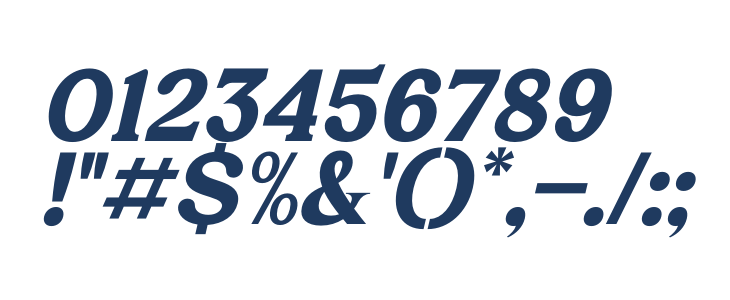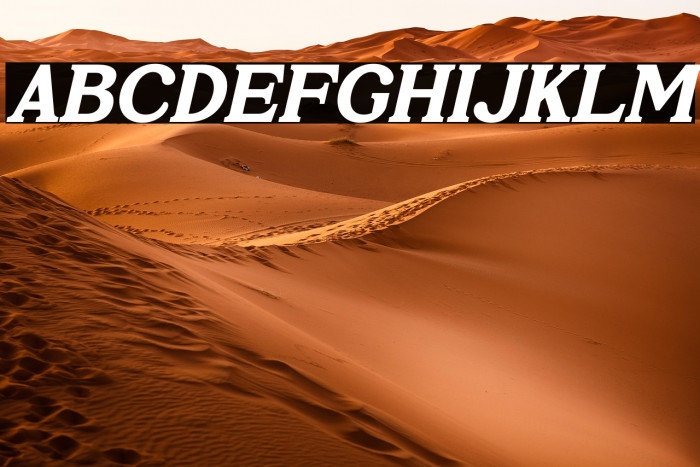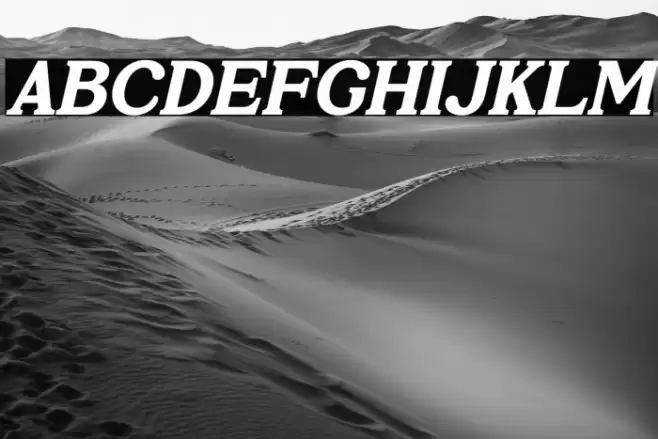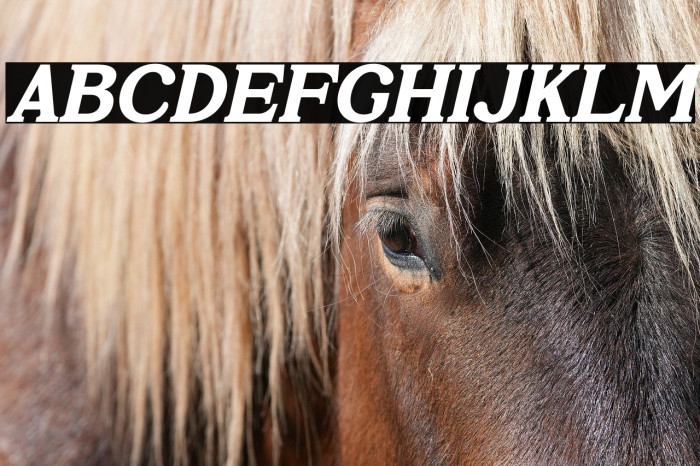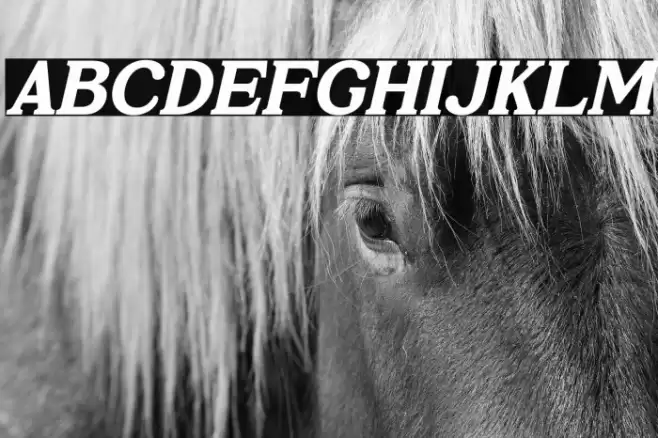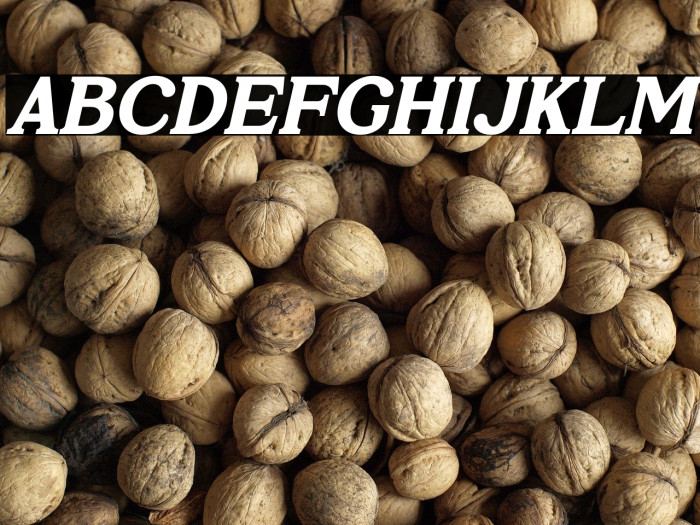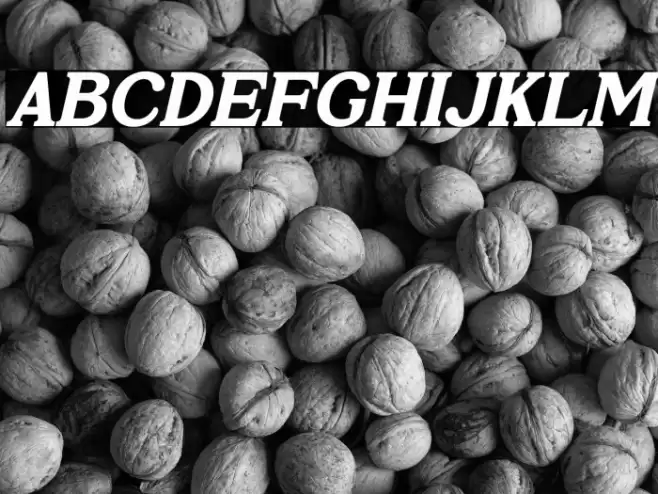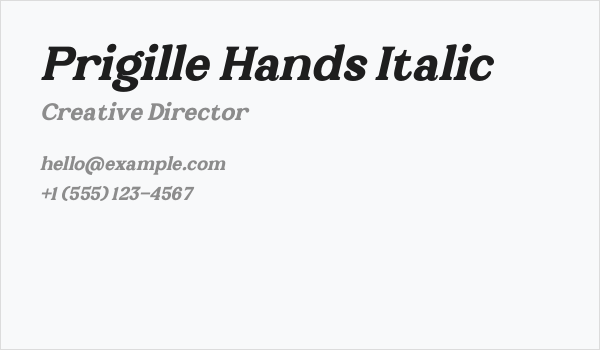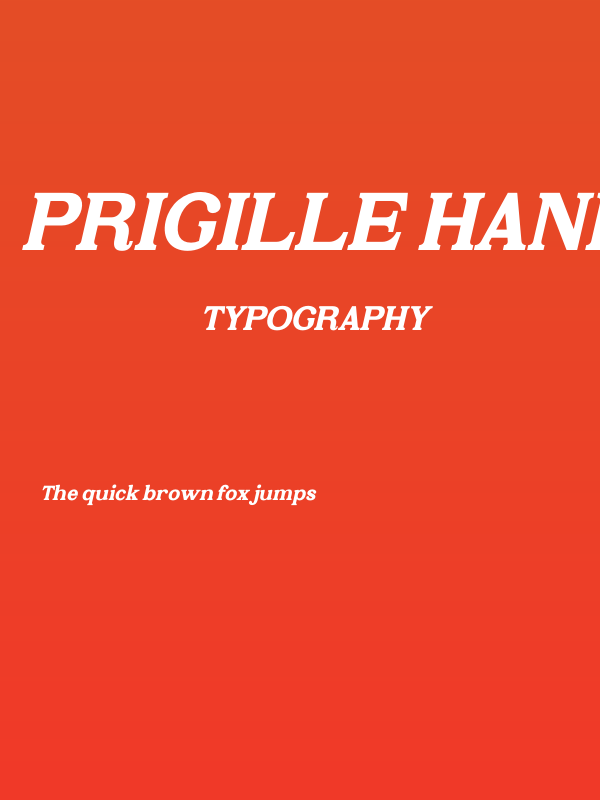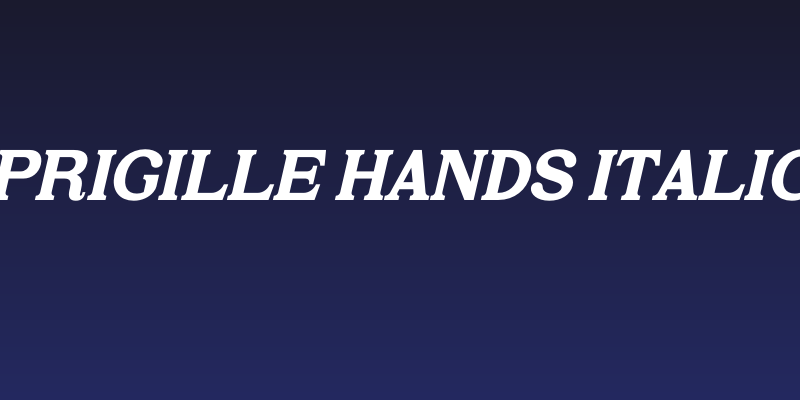
Prigille Hands Italic Font
Prigille Hands Italic Description
This font presents a dynamic and elegant italic style, characterized by its smooth curves and moderate slant. The uppercase letters are bold and commanding, while the lowercase letters maintain a consistent flow, enhancing readability. The numerals are well-proportioned, ensuring clarity in numerical data. Special characters are distinct and harmonize well with the overall design, making it versatile for various applications. The font's boldness and italic nature give it a sophisticated yet approachable feel, suitable for both formal and creative projects.
| Use Case | Headlines, Logos, Editorial design |
| Proposed Projects | Ideal for branding, editorial design, advertising, and packaging where a touch of elegance is desired. |